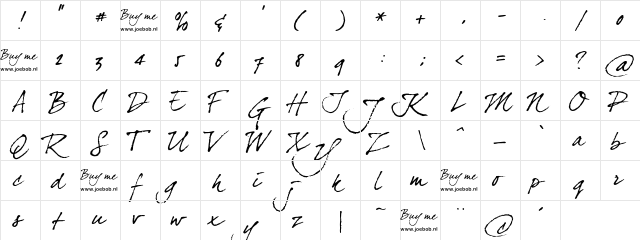
dearJoe four Regular
Design Context for dearJoe four Typeface
dearJoe four takes a measured approach to typography — its balanced proportions and neutral character make it a reliable workhorse for both digital and print work.